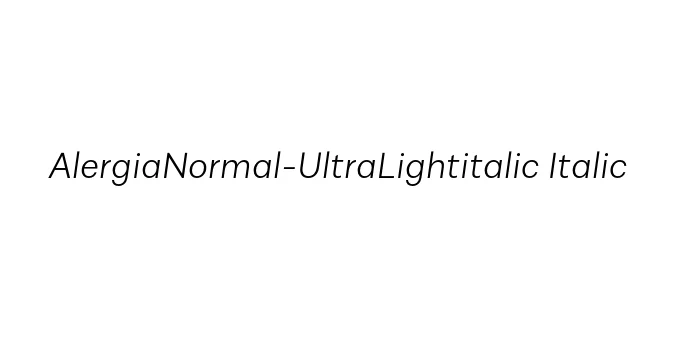
AlergiaNormal-UltraLightitalic Italic
Designed by Mateusz Machalski
| Category | Sans Serif / Hybrid |
| Designer | Mateusz Machalski |
| Similar Fonts | Optima, Avenir, Museo Sans, Gill Sans |
Alergia Normal UltraLight Italic is a sophisticated typeface designed by Mateusz Machalski as part of the extensive Alergia superfamily. This font family serves as a creative bridge between geometric sans-serifs and elegant serif structures, resulting in a unique hybrid aesthetic that feels both modern and classical. The UltraLight weight is characterized by its delicate, hair-thin strokes and graceful italicized slant, making it an ideal choice for high-end design projects requiring a touch of ethereal elegance and precision.
The design of Alergia focuses on high legibility while maintaining a distinct personality through its subtle terminal details and balanced proportions. Released through the Borutta Group, it has become a favorite among graphic designers for branding and editorial work. Its refined nature excels in large-scale display use, where the intricate details of the thin strokes can be fully appreciated without losing their structural integrity, making it a versatile tool for contemporary typography.
AlergiaNormal-UltraLightitalic Italic Best Uses
Perfect for pull quotes, luxury magazine headers, and sophisticated subheadings.
Ideal for high-end fashion, beauty brands, or minimalist logo design.
Great for ethereal hero sections and delicate accent text on modern websites.
Adds a sophisticated and airy touch to aesthetic quotes and Instagram stories.